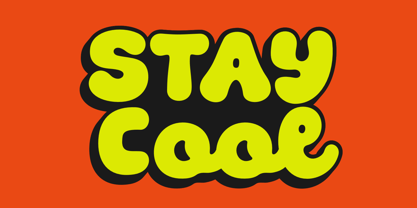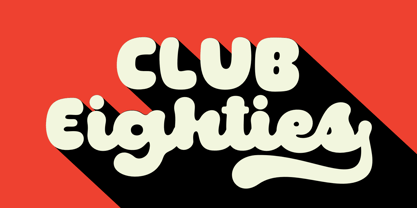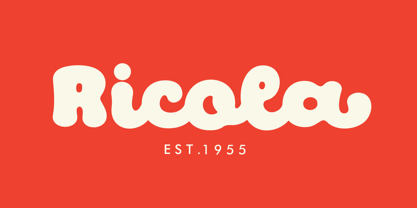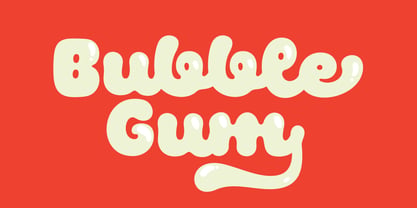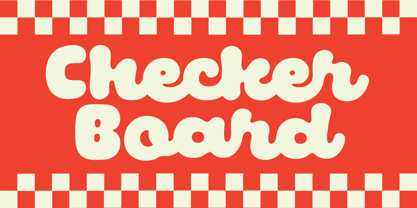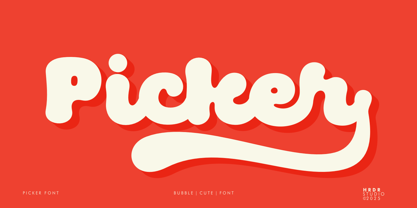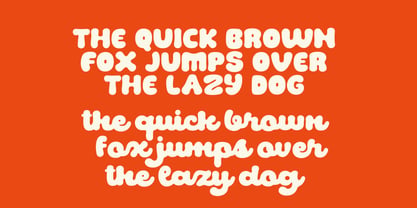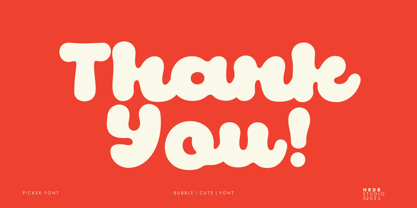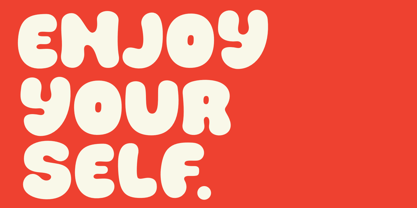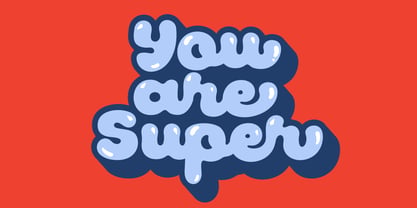
Picker
by HRDR
The Picker Font Family was designed by Dede Mulyadi and published by HRDR. Picker contains 1 styles. More about this family
Meets Picker, This bubble bold and curvy script font evokes a sense of retro and elegant charm. Perfect for eye-catching headlines, artistic logos, creative branding, and playful posters, its handwritten style adds a personal and expressive touch to any design project. Ideal for designers looking to create a fun and unique impression. Font Features : Uppercase Lowercase numeric & Multilingual support Ligatures Stylistic Alternates with Ss01, Ss02, Ss03, Ss04 Picker support PUA Encoded font files for use with software that doesn't support OpenType features such as Silhouette, Inkscape, etc.
Designers: Dede Mulyadi
Foundry: HRDR